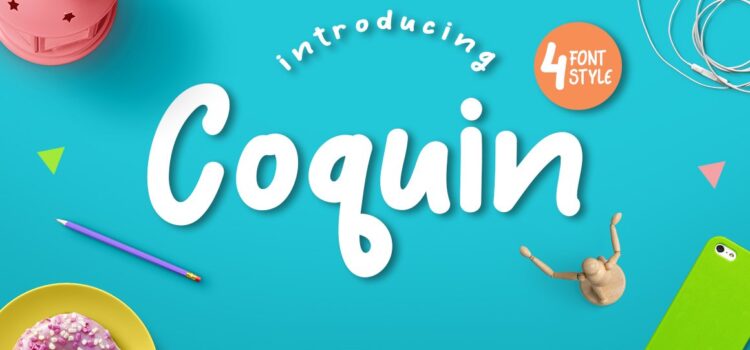
coquin
Coquin Font – Free Download Introduction to Coquin Font Inspired from handwriting created by the strokes of a bold marker, Coquin is an amazingly cute font. 📸 Preview Gallery 2 images 📌 Product Name Coquin Font 👤 Author Debut Studio